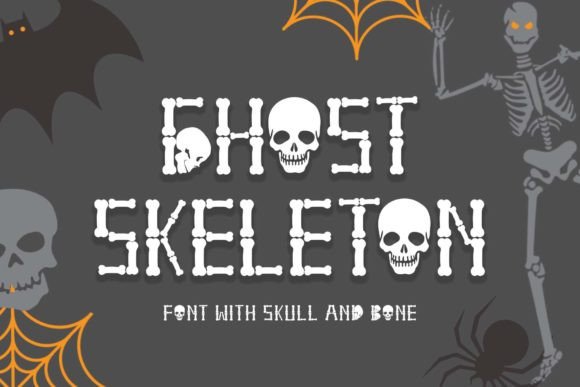
Introducing Ghost Skeleton Font, the ultimate display font crafted by yogaletter6. This font is not just your ordinary typeface, it is a powerful tool that will elevate your designs to new heights. If you are searching for the perfect font to create captivating political posters, look no further. Ghost Skeleton Font is your secret weapon.
With its eerie and haunting appeal, Ghost Skeleton Font is a must-have for all Halloween enthusiasts. Whether you are hosting a spine-chilling party or working on a spooky project, this font will add a touch of magic to your creations. Its unique design will leave a lasting impression, making your designs stand out from the crowd.
Get ready to unleash your creativity with Ghost Skeleton Font. Its captivating and eye-catching features will mesmerize your audience, compelling them to engage with your designs. As darkness falls, your creations will come alive, leaving people in awe and amazement.
But this font is not limited to the Halloween season. Ghost Skeleton Font is versatile and can be used in a variety of designs. From posters to social media graphics, this font will breathe life into your projects and make them truly unforgettable.